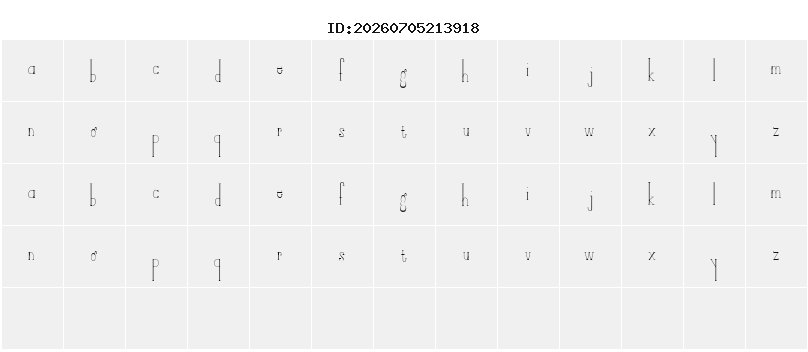
• Font Name: Dirty Little Secrets
• Full Font Name: Dirty Little Secrets
About Dirty Little Secrets.ttf
Dirty Little Secrets.ttf is a modern, elegant sans-serif font designed for ultimate readability and visual harmony. Perfect for branding, headlines, web design, and print materials.